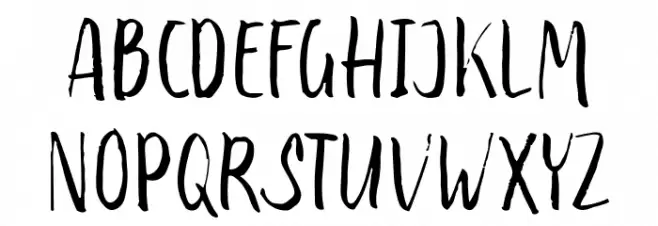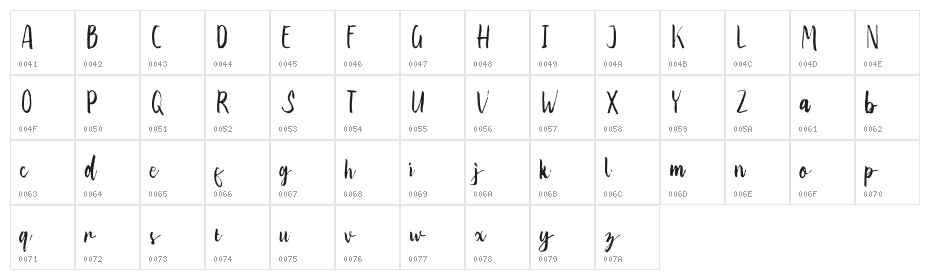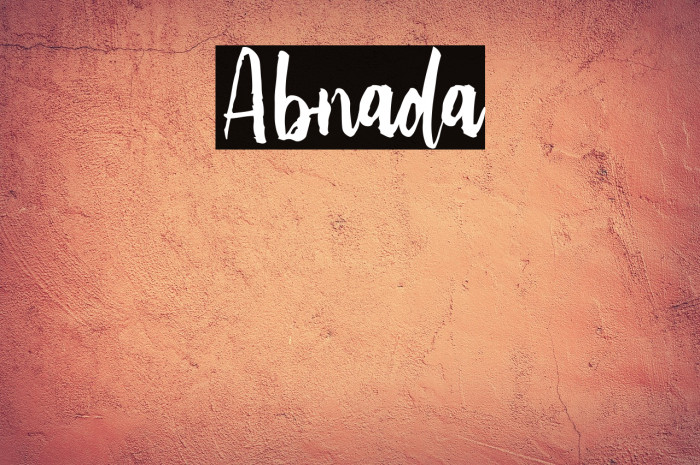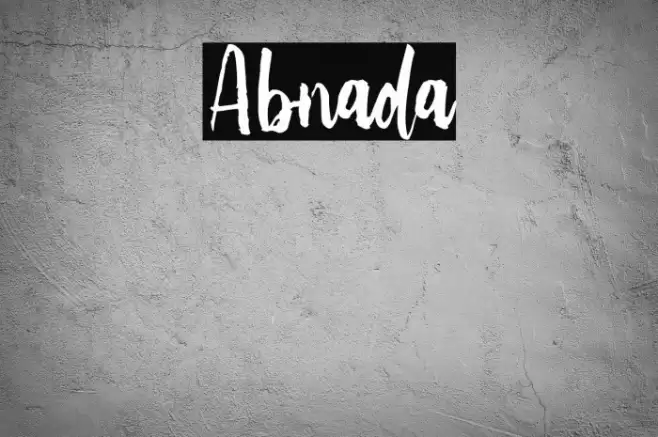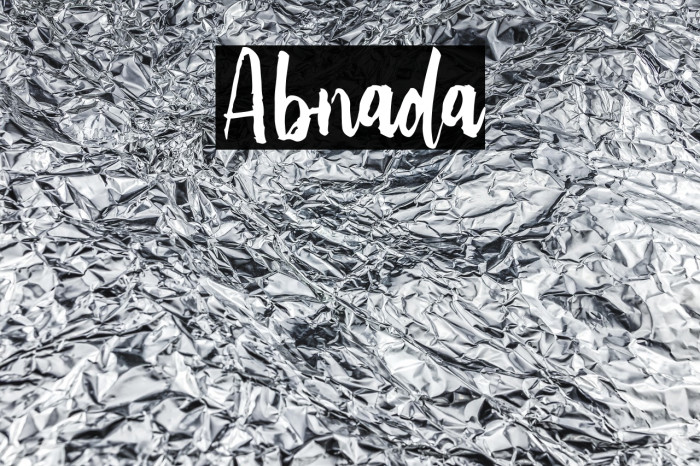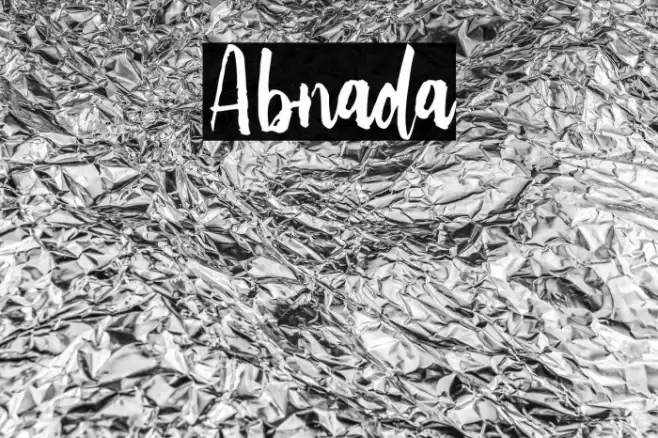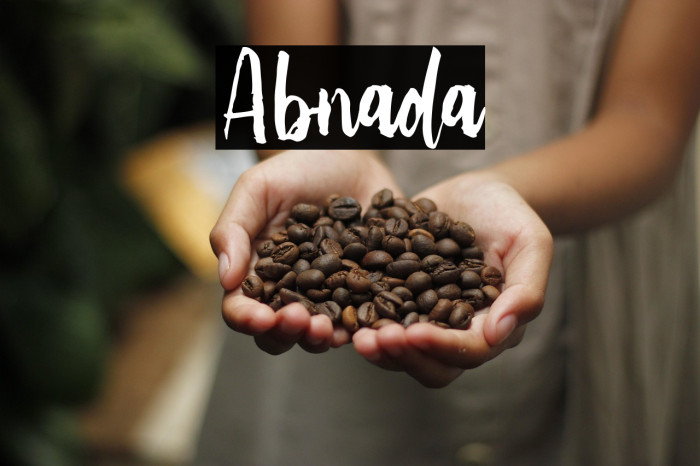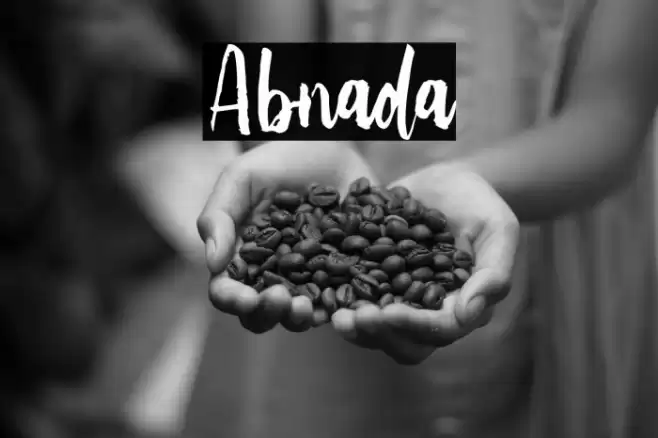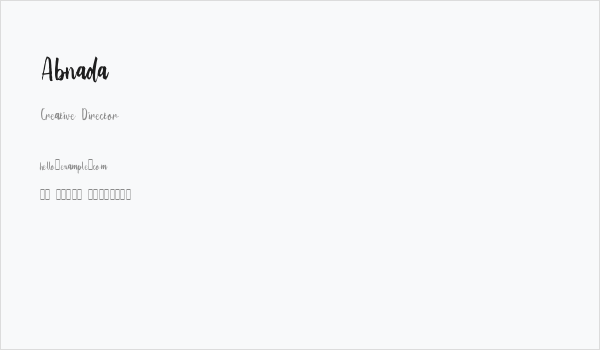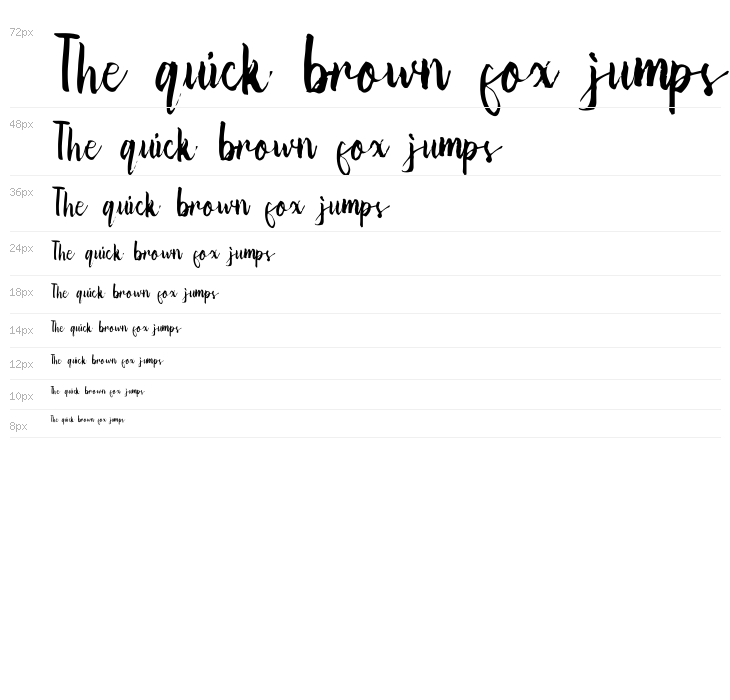
Abnada Font
Abnada Description
This font features a hand-brushed style with a dynamic and expressive appearance. The uppercase letters are bold and slightly irregular, giving a sense of movement and energy. The lowercase letters maintain a fluid and cursive-like quality, enhancing the handwritten feel. The strokes vary in thickness, adding a natural and artistic touch. This font is ideal for projects that require a personal and creative flair, such as invitations, posters, and branding materials. Its unique style makes it stand out, capturing attention with its artistic charm.
| Proposed Projects | Ideal for invitations, posters, branding, and creative projects needing a personal touch. |